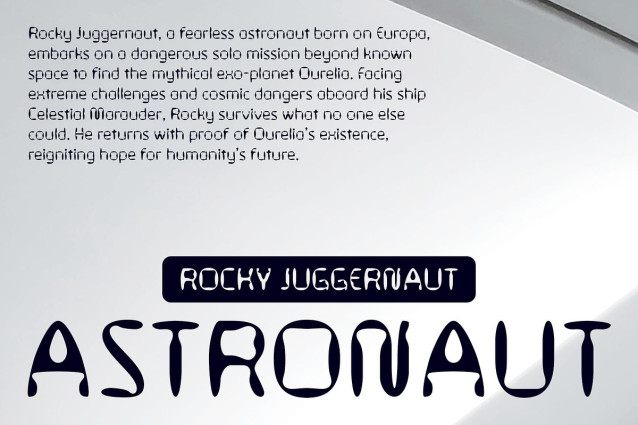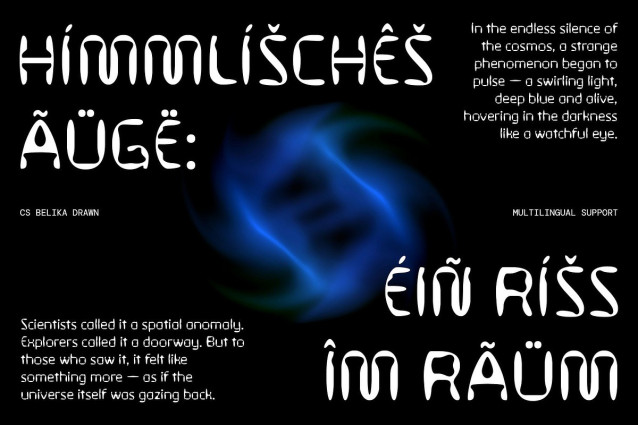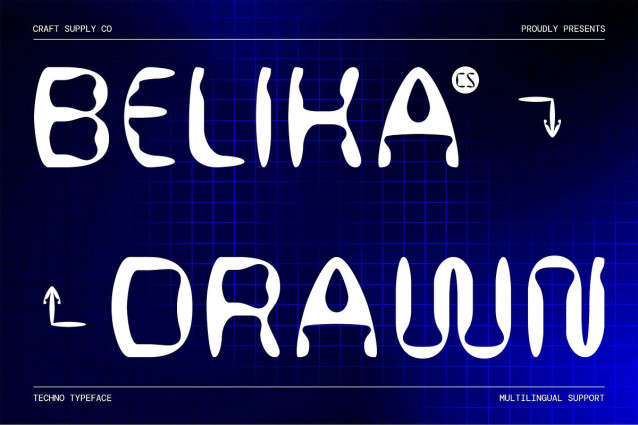
CS Belika Drawn Font
CS Belika Drawn Font is a modern sans-serif display font that embraces bold geometry and sharp precision. Its techno-inspired letterforms evoke a digital and experimental aesthetic, making it a perfect match for contemporary and forward-thinking visual identities. The structured design brings clarity, modernism, and a cutting-edge feel to any layout.
Drawn Effect for Organic Texture What sets this expressive font apart is its drawn effect—a handcrafted overlay that introduces an artistic layer of texture. This organic imperfection softens the digital rigidity, creating a fascinating contrast between mechanical structure and human touch. It gives the font a more approachable, expressive personality while retaining its bold techno style.
Edgy and Artistic Modern Appeal With its combination of clean geometry and textured finish, this techno font feels fresh, edgy, and artistic. It’s an excellent choice for projects that demand visual intensity with a creative edge—think futuristic posters, innovation-focused branding, or digital interfaces with a strong visual identity.
Ideal for Tech, Sci-Fi, and Experimental Design Perfect for tech startups, sci-fi themes, electronic music visuals, or avant-garde branding, this Neo-industrial font delivers a unique and memorable presence. Whether for titles, headers, or logotypes, it helps your project stand out with a bold mix of innovation and artistic flair.